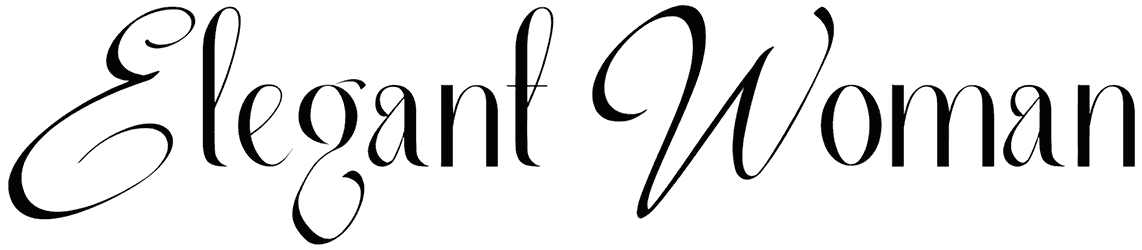
Elegant Woman Font
Elegant Woman font has that graceful fashion-page mood where every word suddenly stands taller. Its stylish personality feels feminine, polished, and a little dramatic, like it was made for beauty branding that wants elegance without looking too predictable. You can tell this one belongs in designs where spacing, softness, and confidence all matter.
Use this feminine font for perfume labels, boutique logos, wedding stationery, magazine titles, skincare packaging, or classy Instagram templates that need a refined voice. Pair it with nude tones, silk textures, floral shadows, thin gold lines, or black-and-white portraits, and your layout starts feeling quietly luxurious.